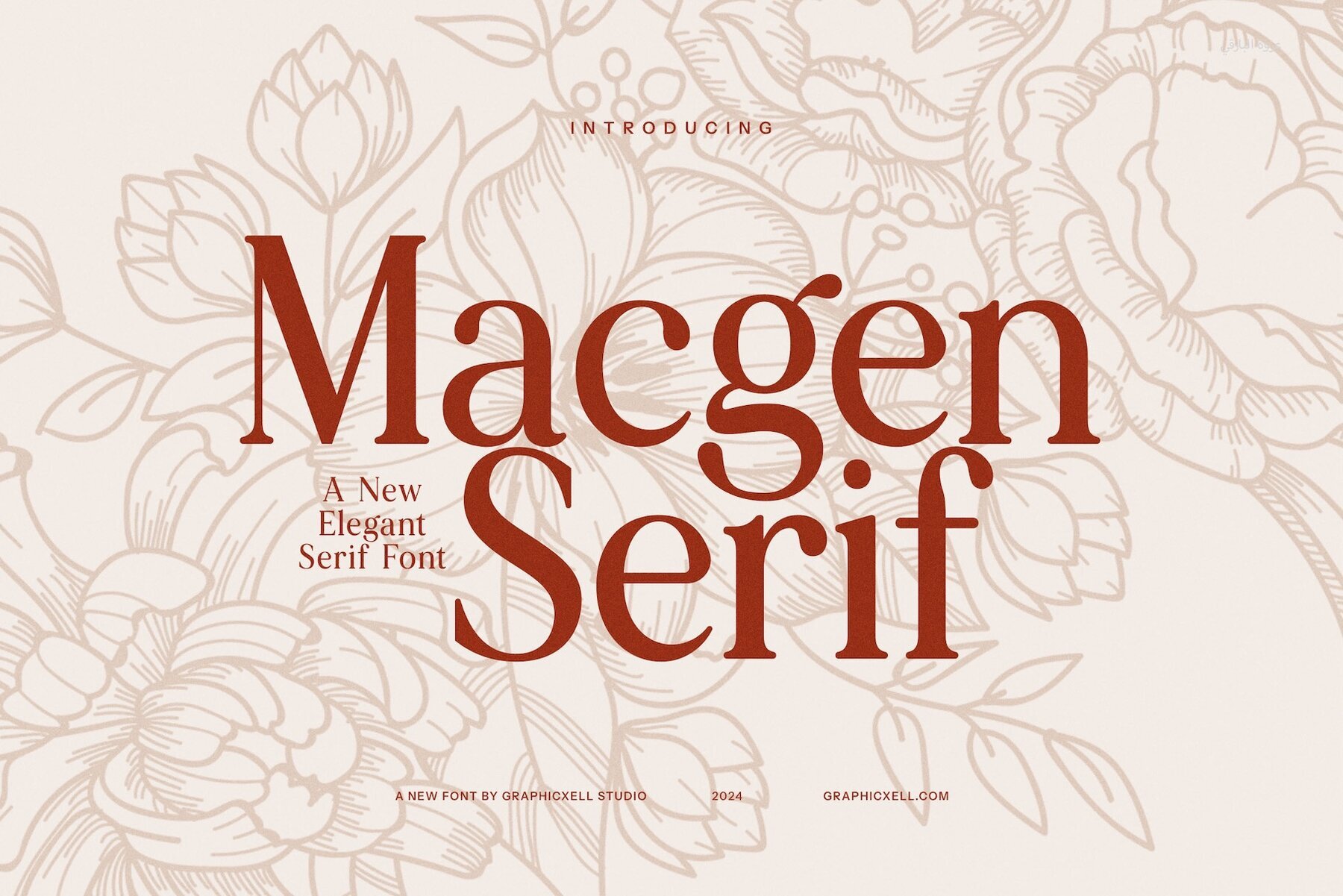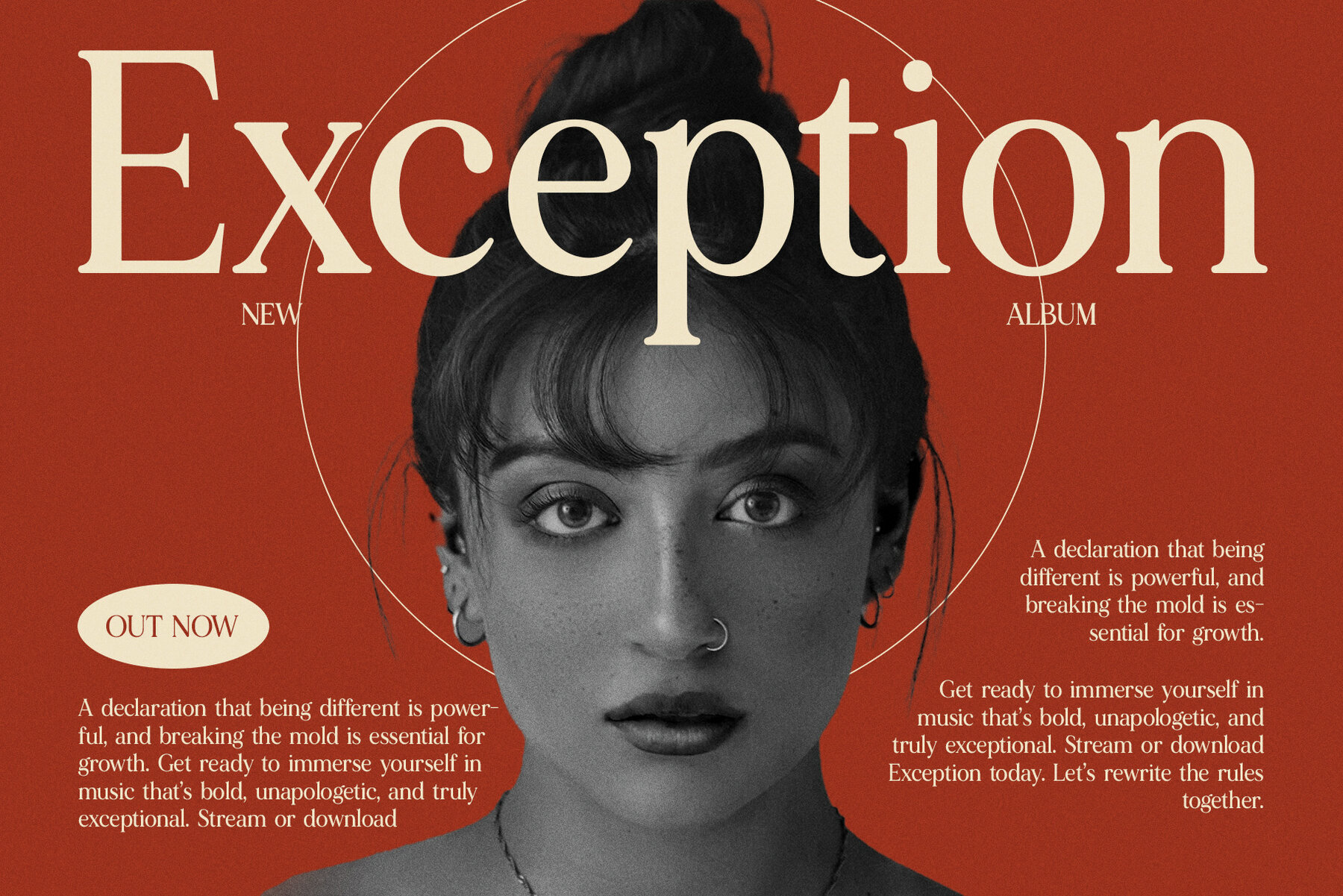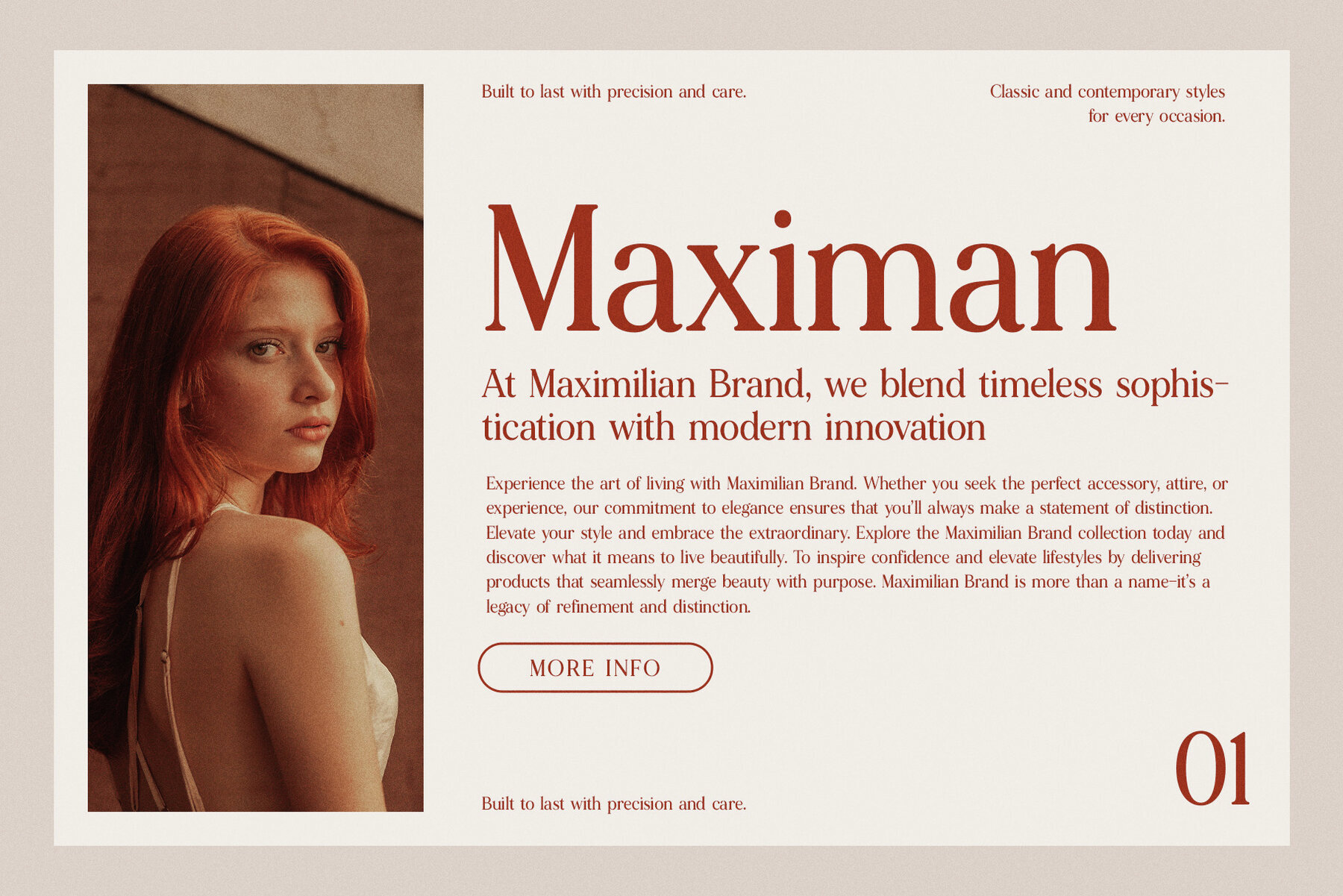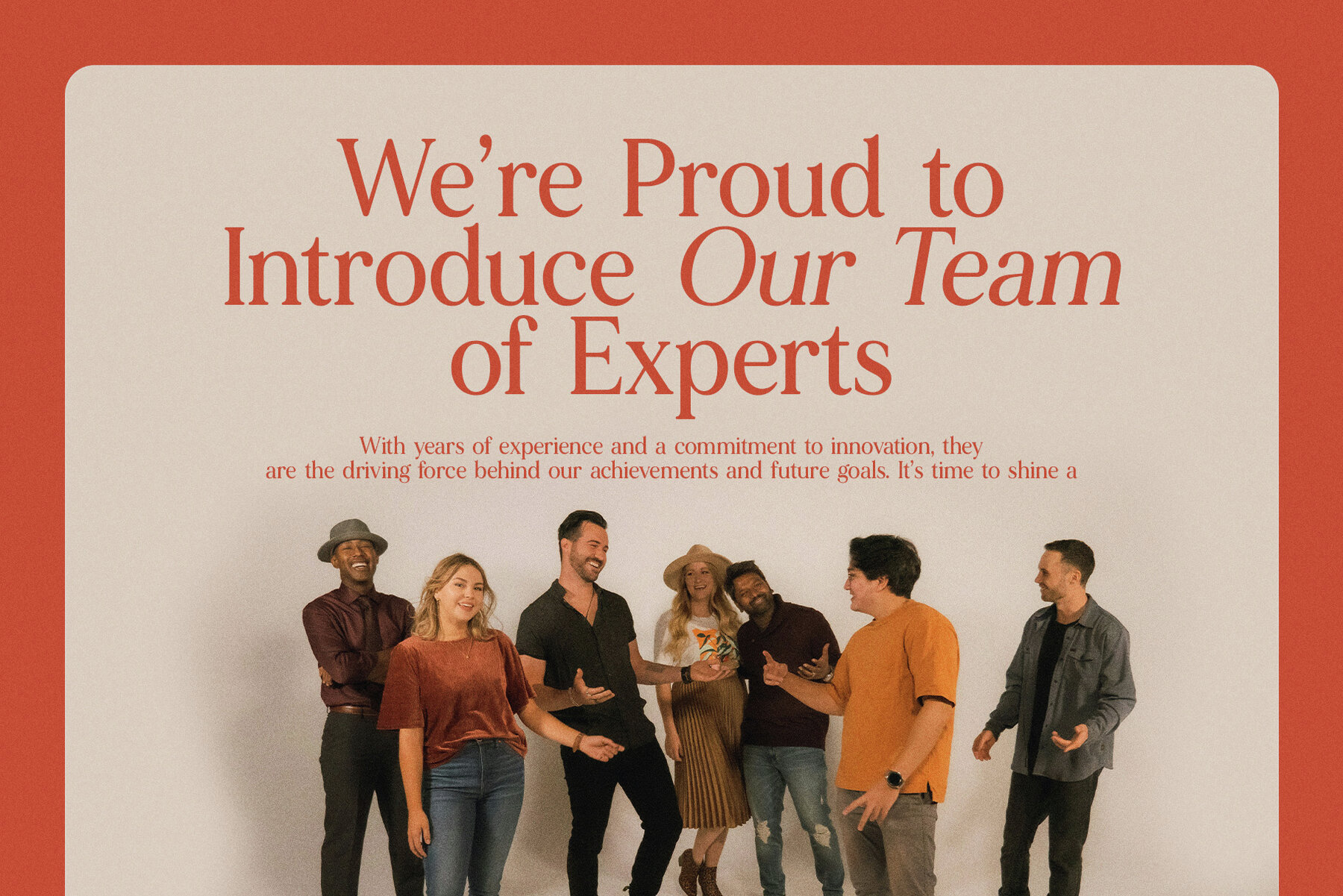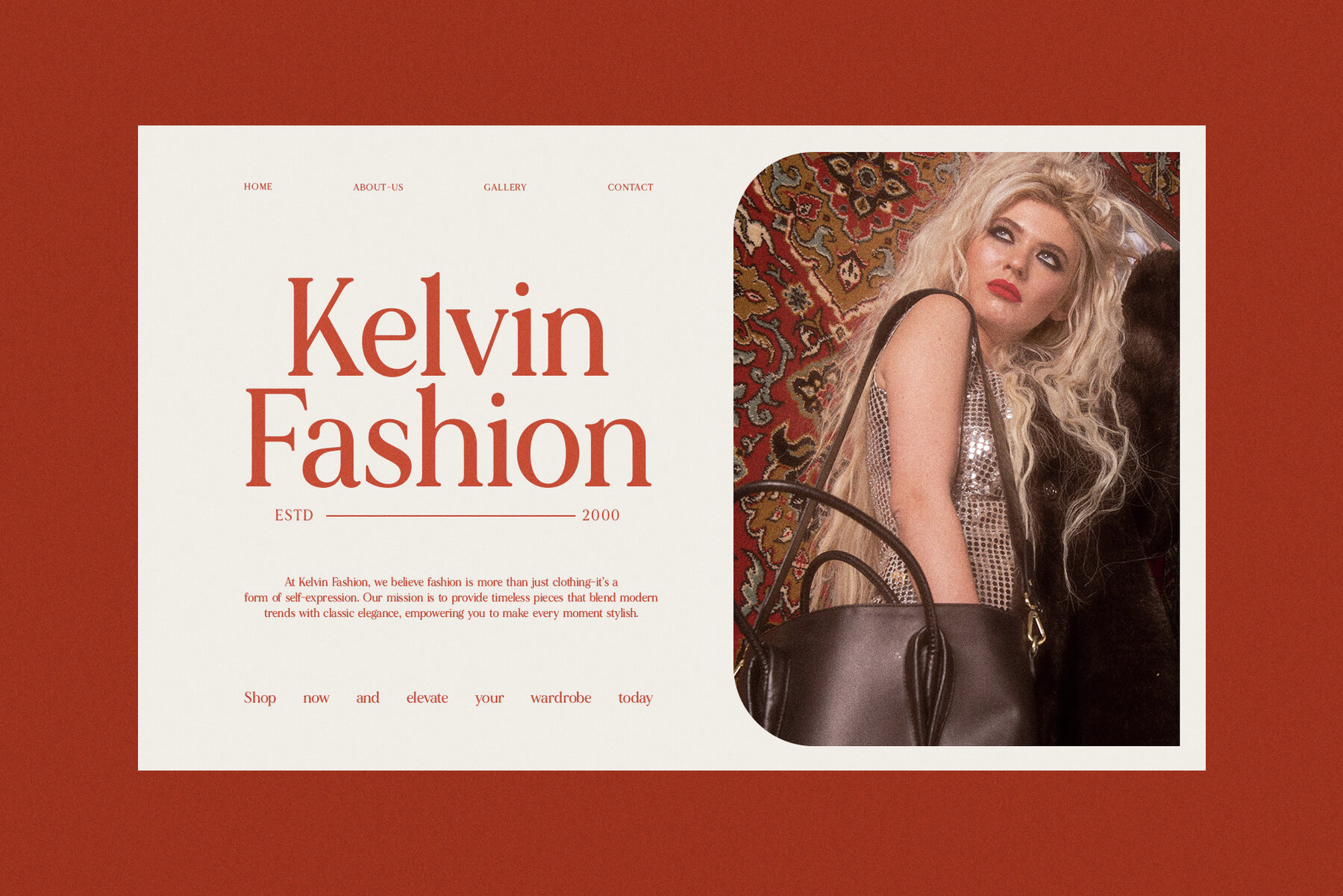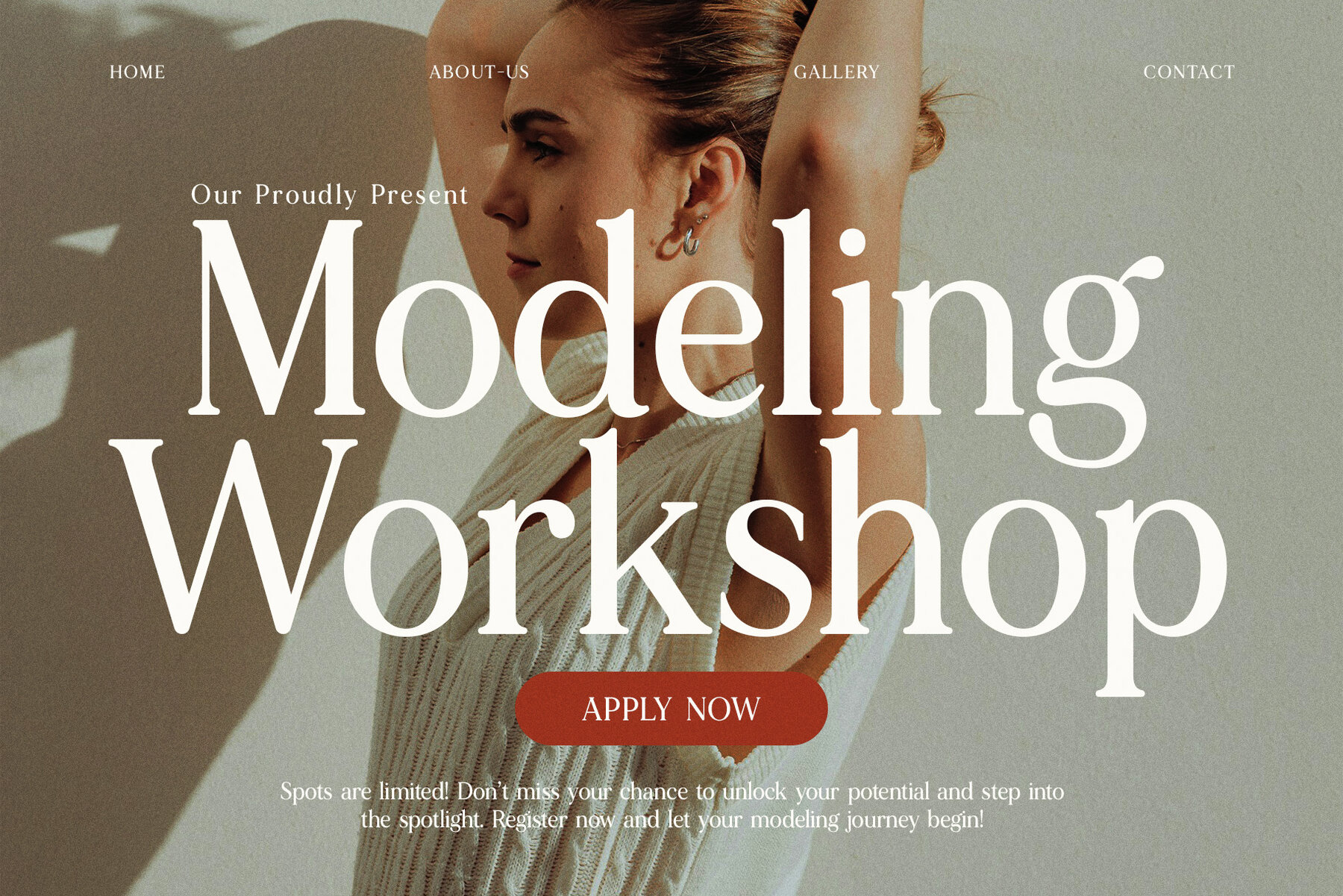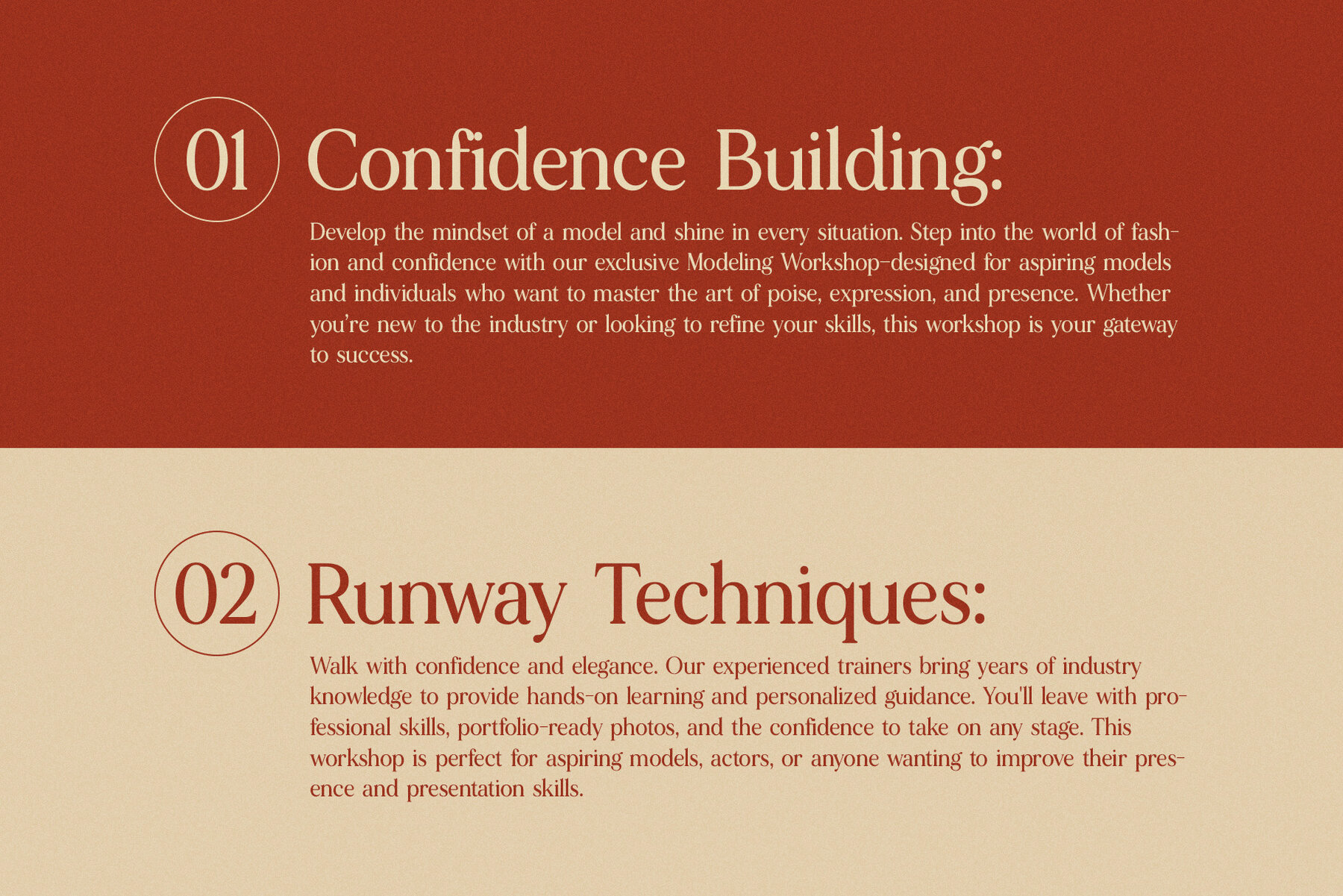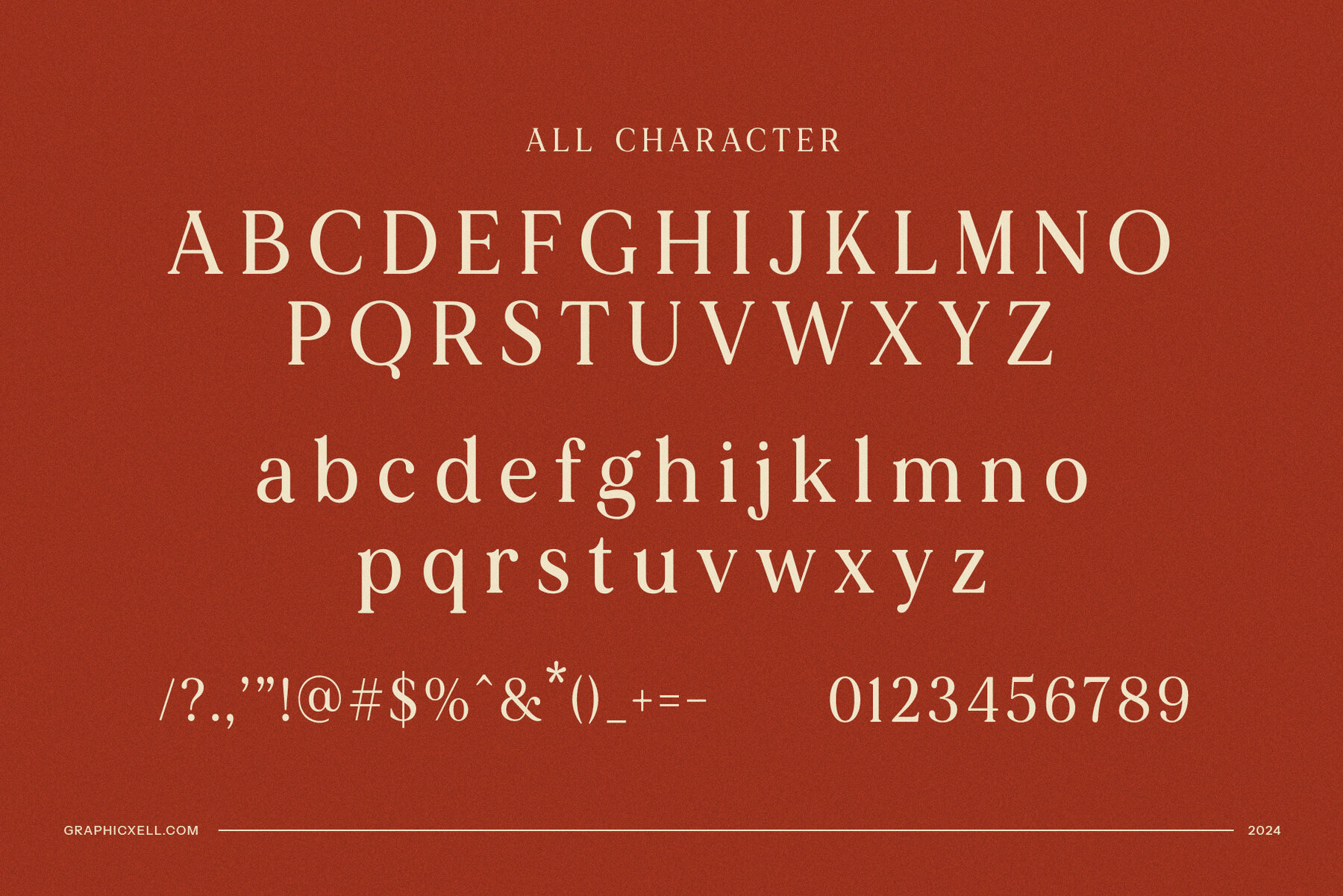
Macgen Font
Macgen
Macgen Elegant Serif Font is a sophisticated typeface that masterfully blends modern elegance with a hint of vintage charm. Its refined serifs impart a luxurious feel, while the clean lines and graceful proportions infuse modernity. With a unique balance of timeless beauty and contemporary flair, Macgen is perfect for high-end designs and creative projects. Whether you're crafting a logo, building a brand identity, or designing an elegant website, this font lends an air of prestige and class.
Macgen is ideally suited for industries such as fashion, luxury goods, hospitality, food, and lifestyle, where a refined, premium aesthetic is crucial. The font’s versatility makes it an excellent choice for magazines, brochures, and product packaging, as it combines style with readability. Delivering a polished, professional look without losing personality, Macgen ensures sophistication and visual clarity in any project. Suitable for both print and digital mediums, its unique character set and timeless design promise longevity, giving your creative projects a distinctive and upscale appeal.